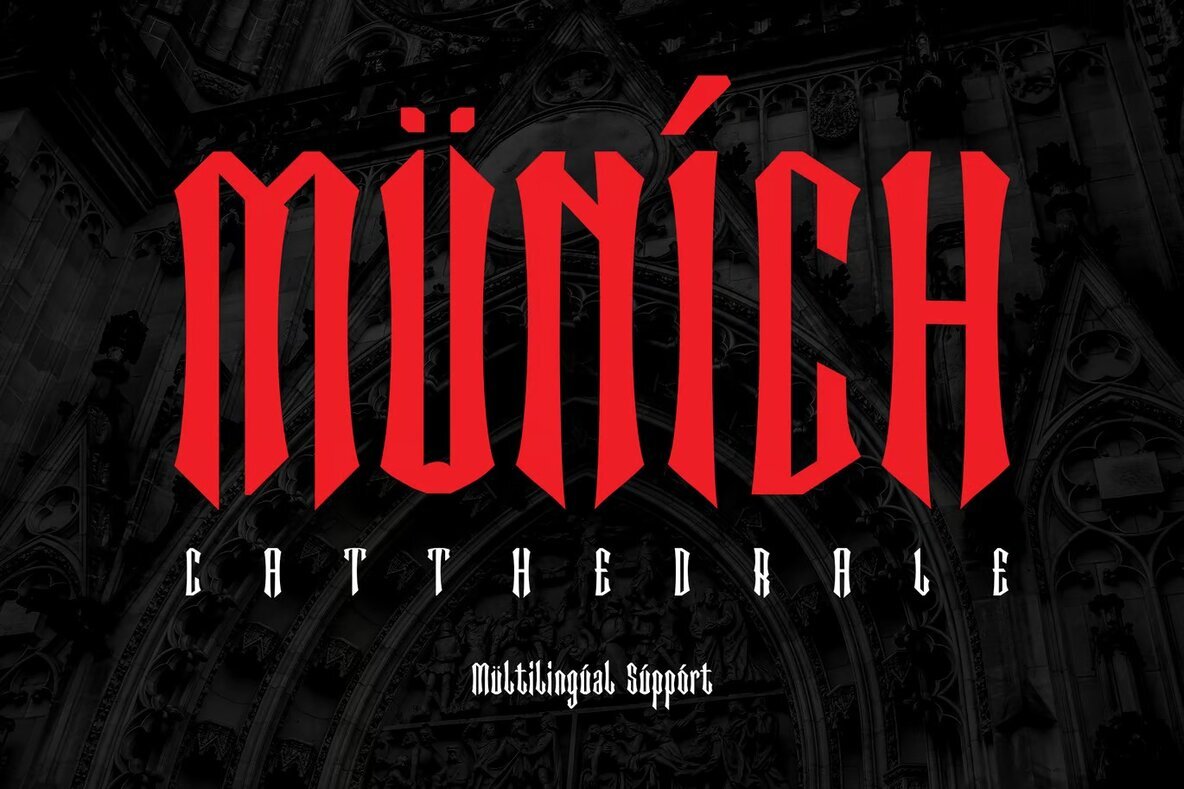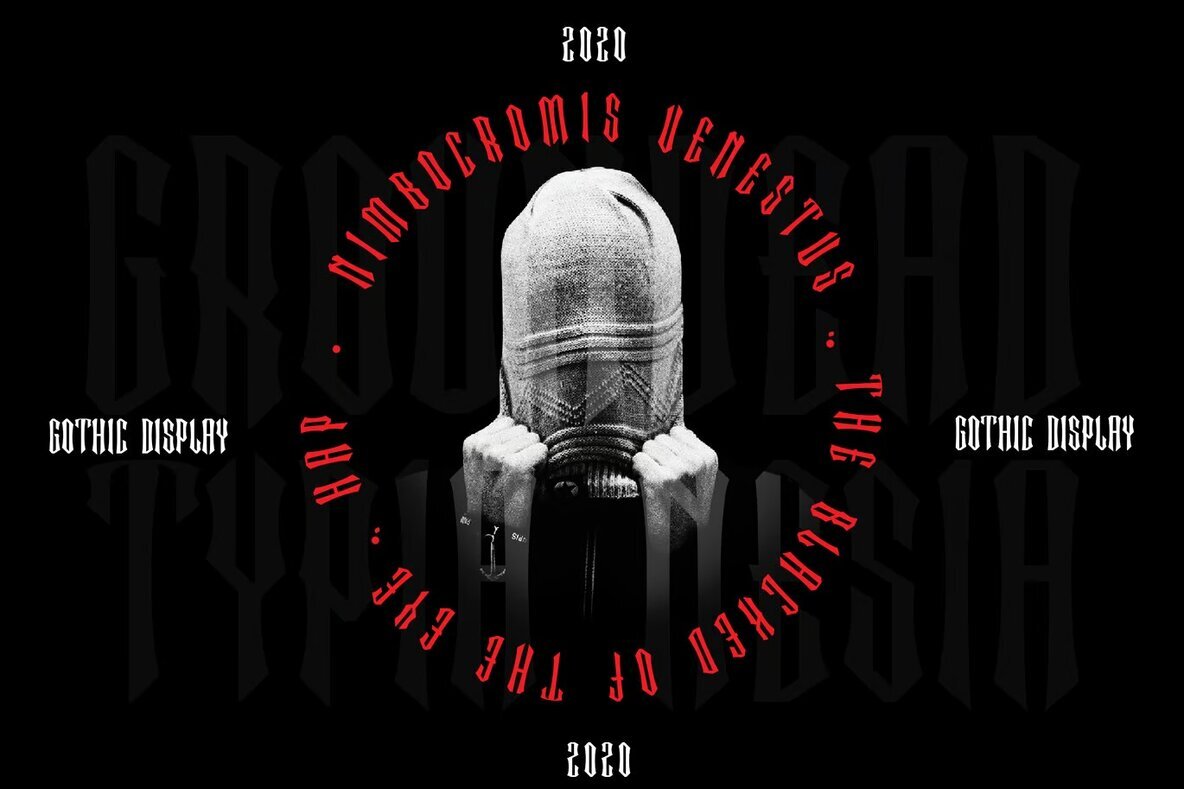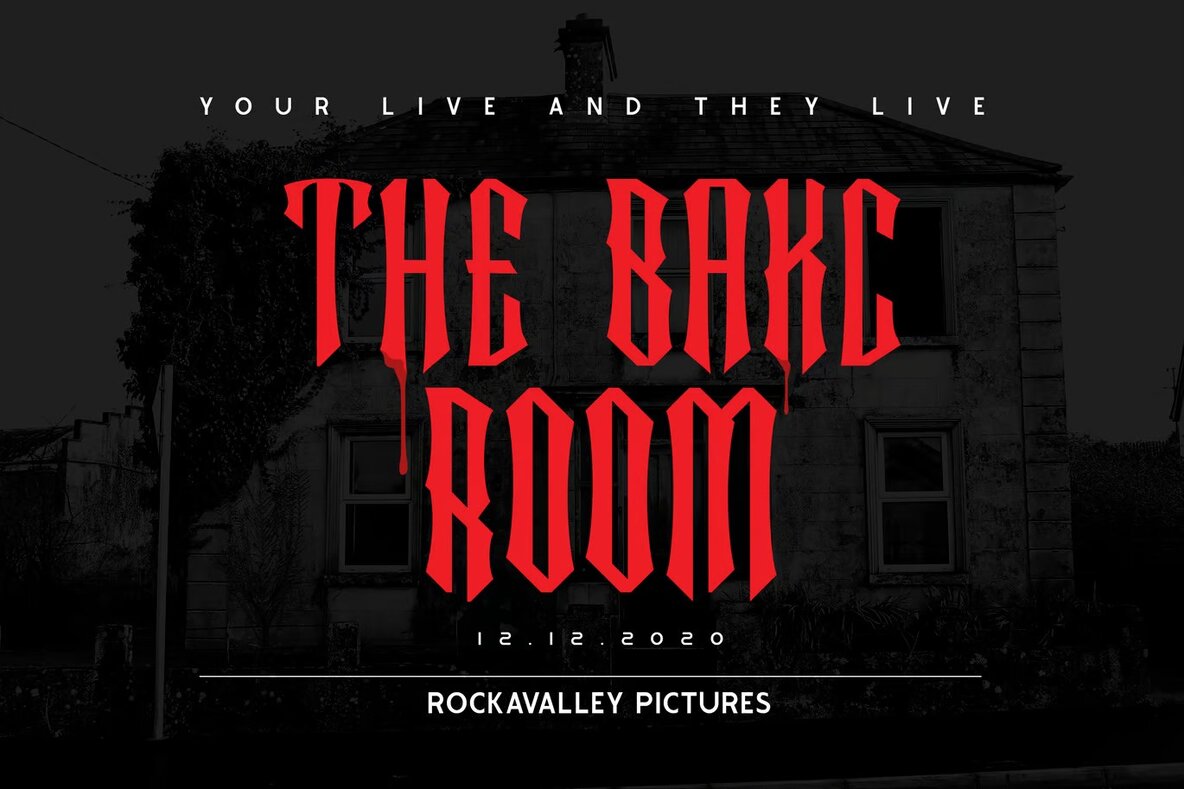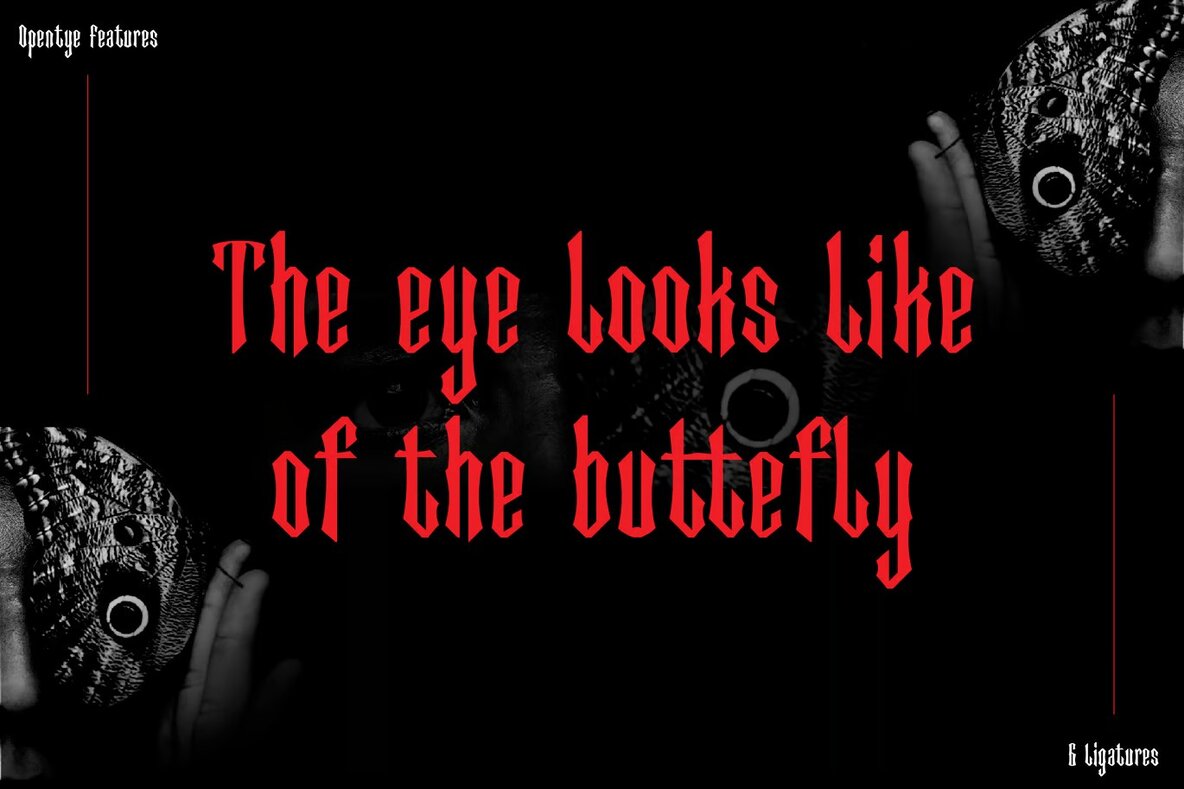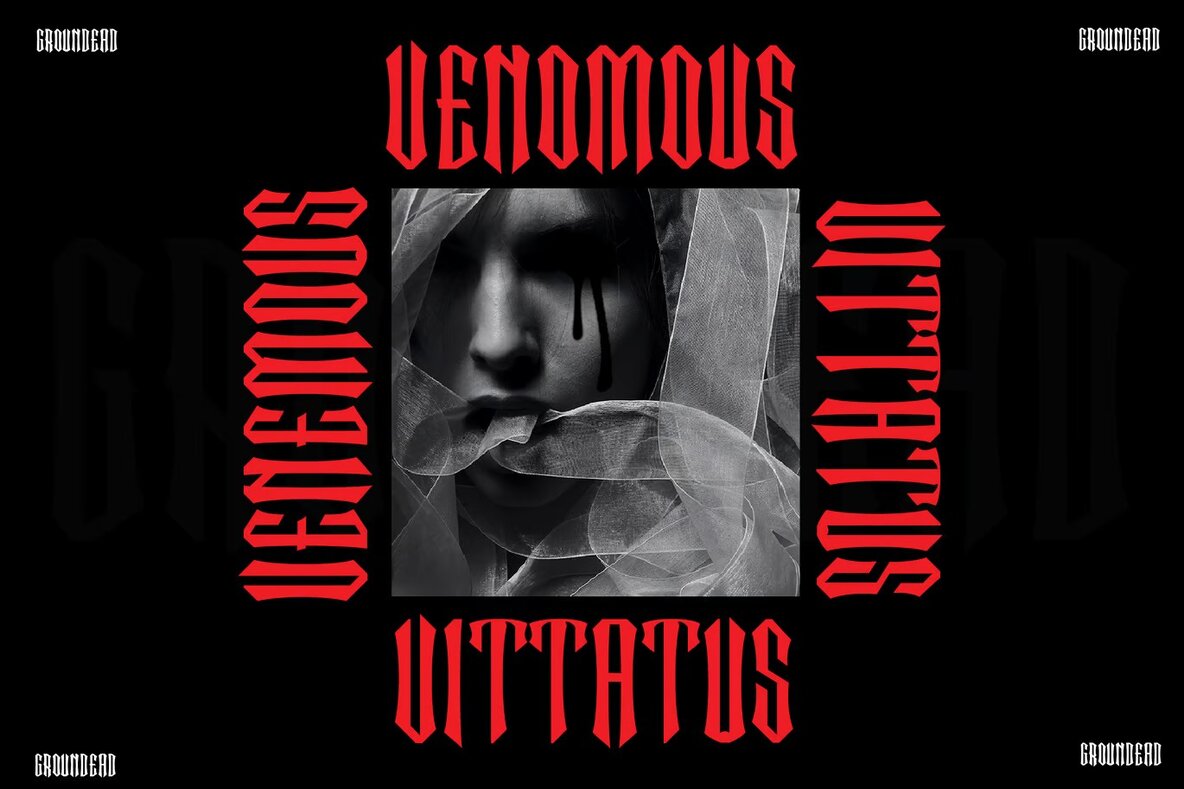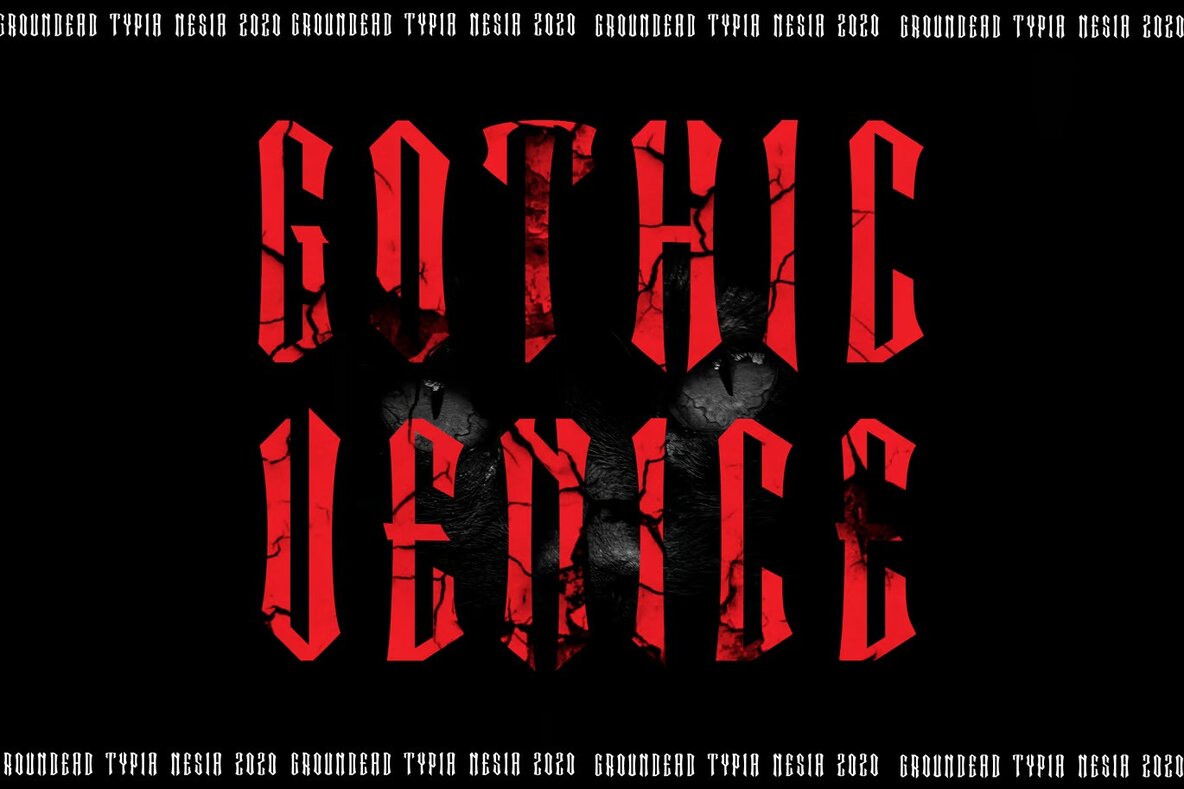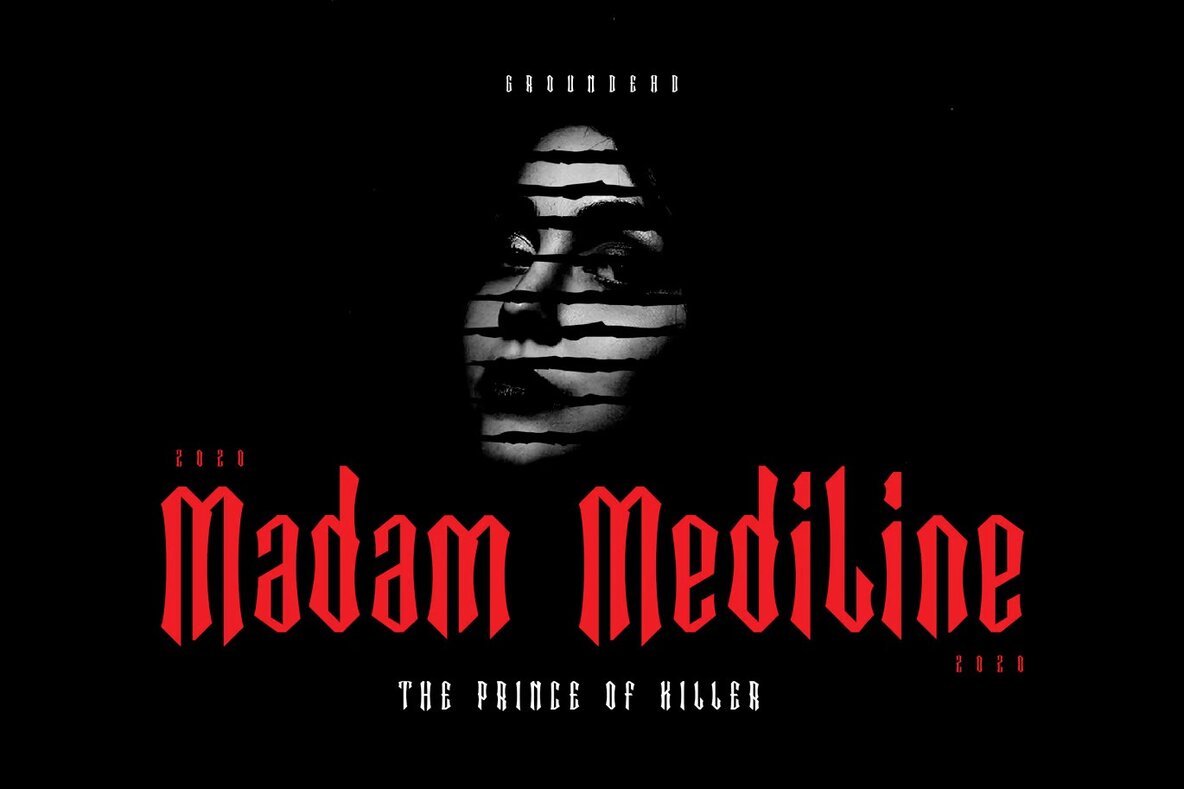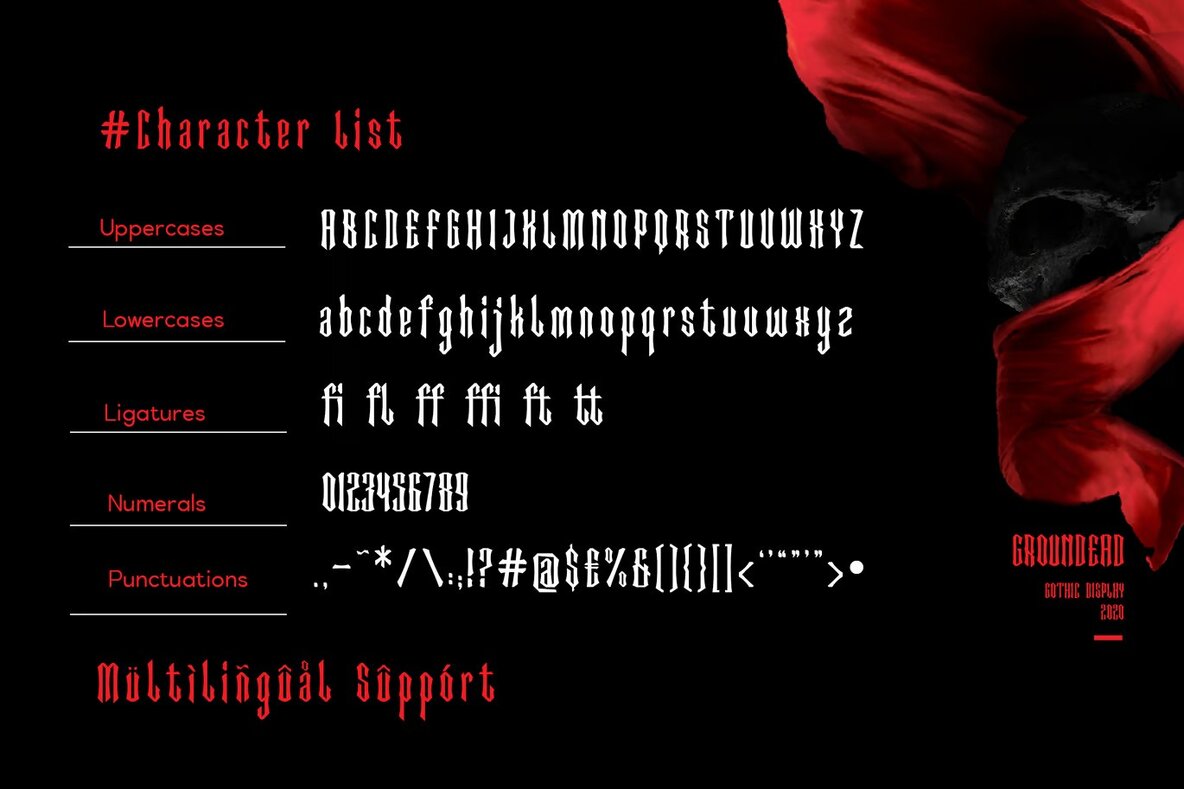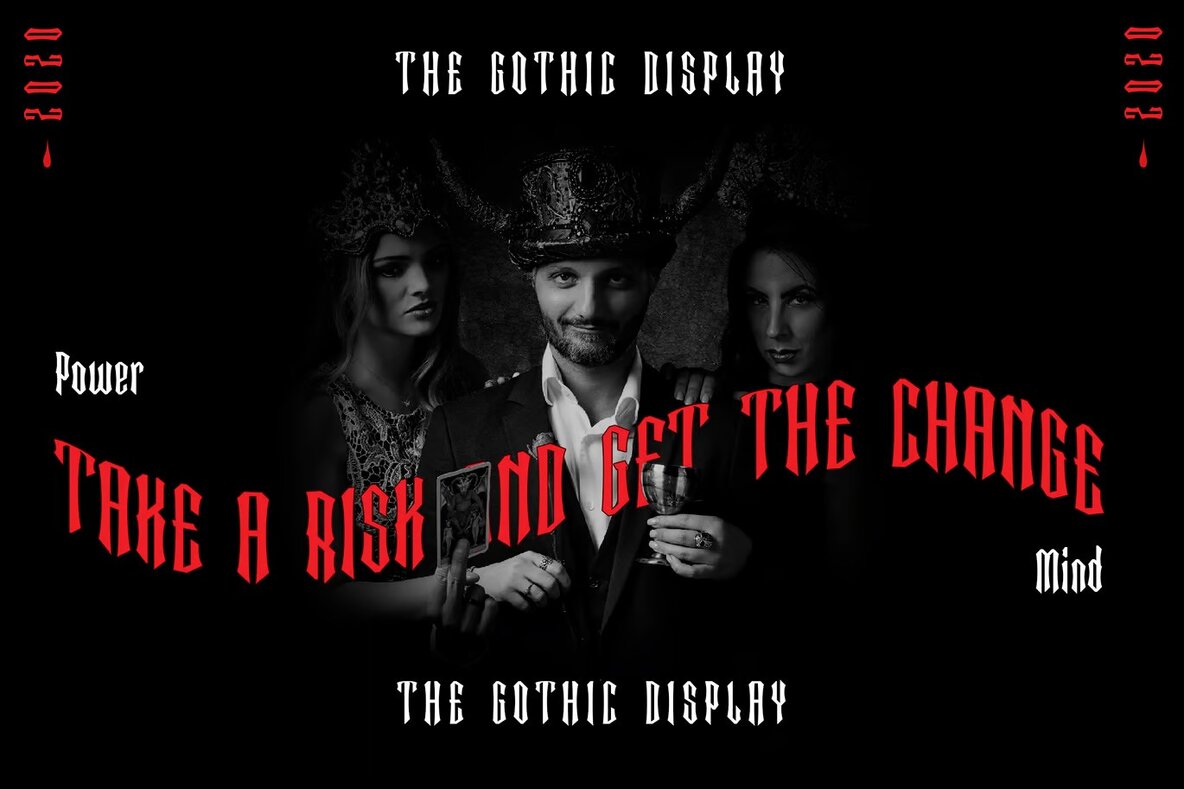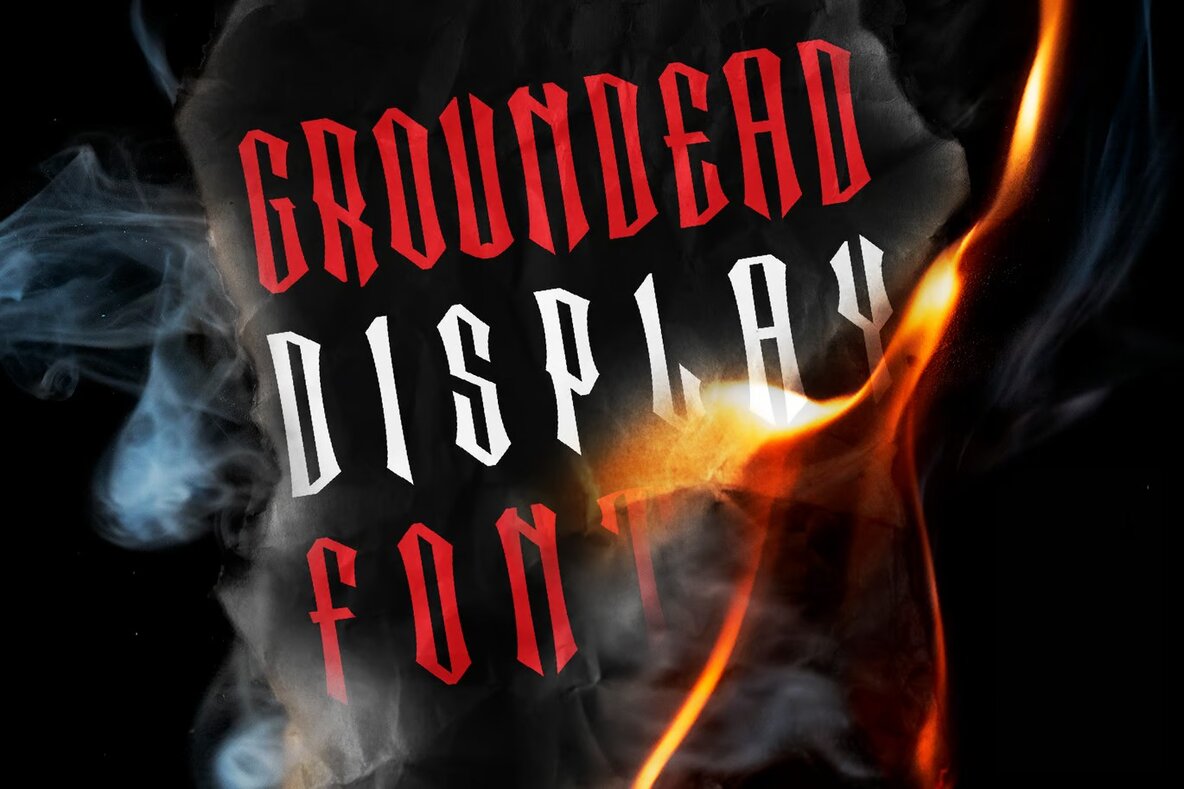
Groundead Font
Groundead is a gothic decorative display font ideal for diverse design projects. Its unique style makes it perfect for logos, branding, modern advertising, and a range of themed designs such as Halloween and gothic-inspired works. Suitable for hardcore music and animation, Groundead adds a bold touch to poster quotes, book covers, and editorial design.
Whether you're designing a website, blog, or custom products like mugs and pillows, Groundead enhances creativity. It’s perfect for apparel and t-shirts, offering a distinct gothic hand-lettered style for any project looking for a dramatic edge.